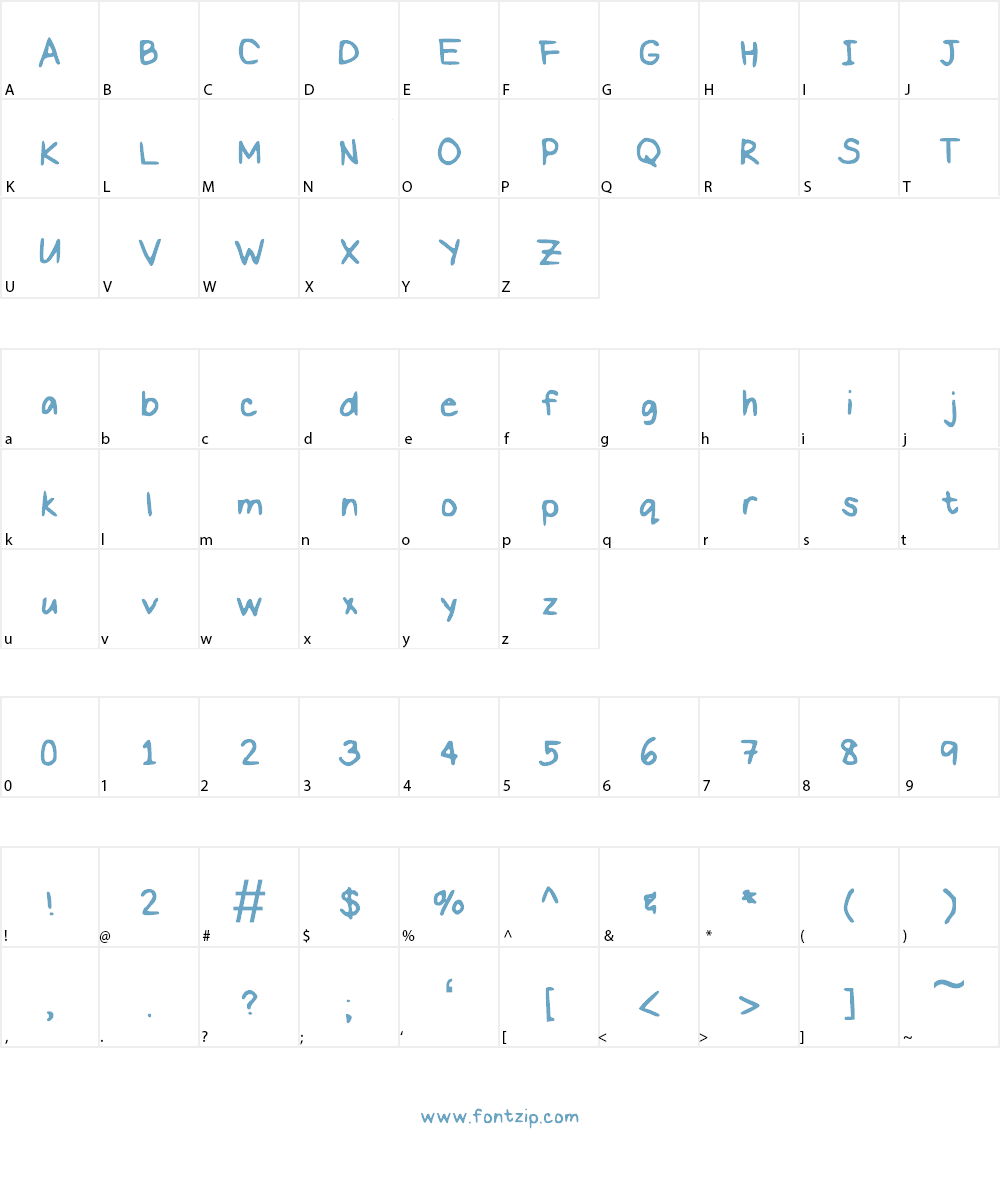
I tried my new template now! What do you think? BTW, all problems about the " sign is already fixed! Yaaay~ You can now use this sign.
Picture This is an awesomely awesome new font with letters A-Z, LOTS of punctuation and other marks and a camera doodle when you press the | key.